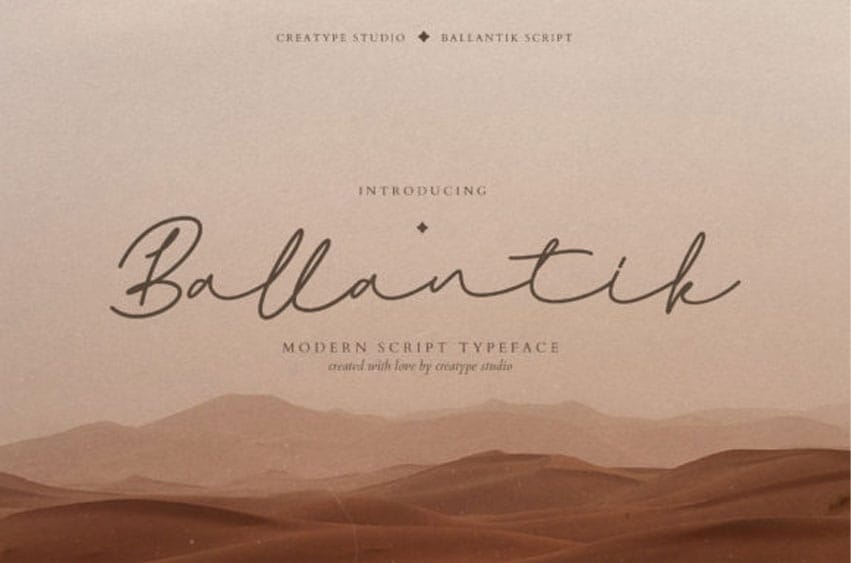
Ballantik Font is a delicate, dainty, and stylish script font, featuring a lovely flow. This font is PUA encoded which means you can access all of the glyphs and swashes with ease!